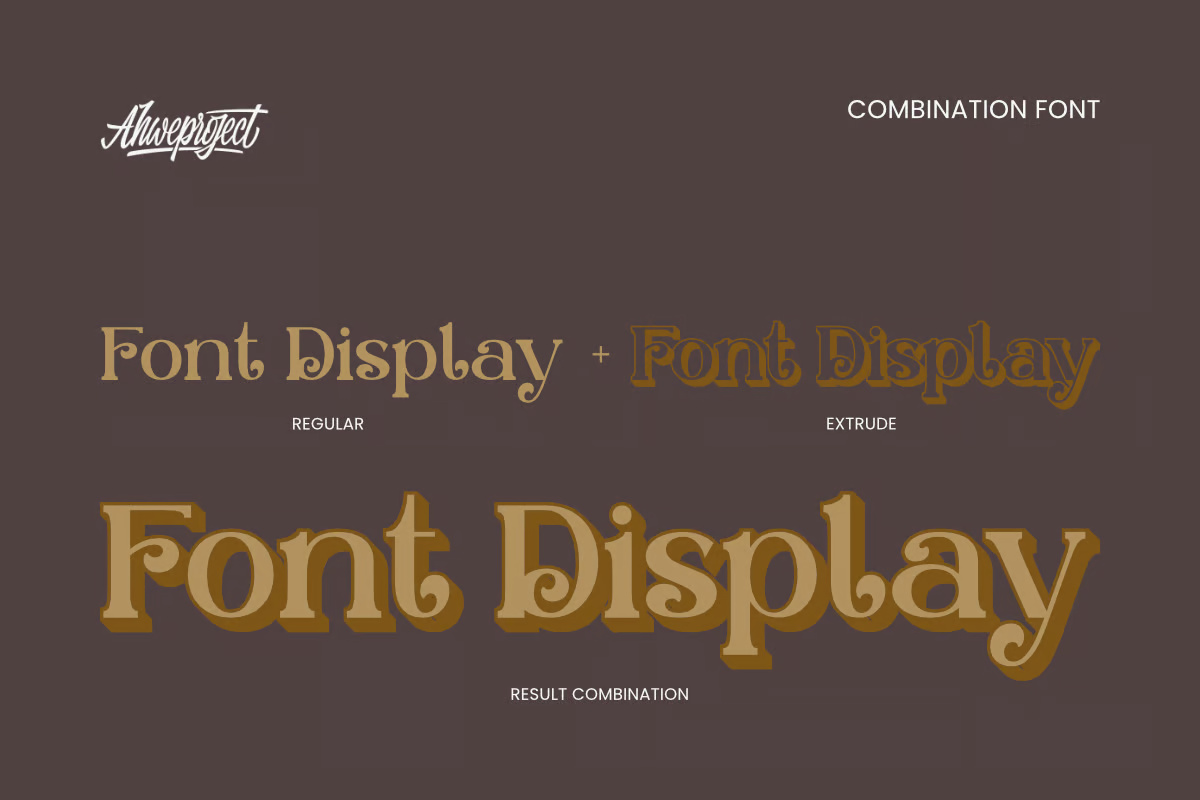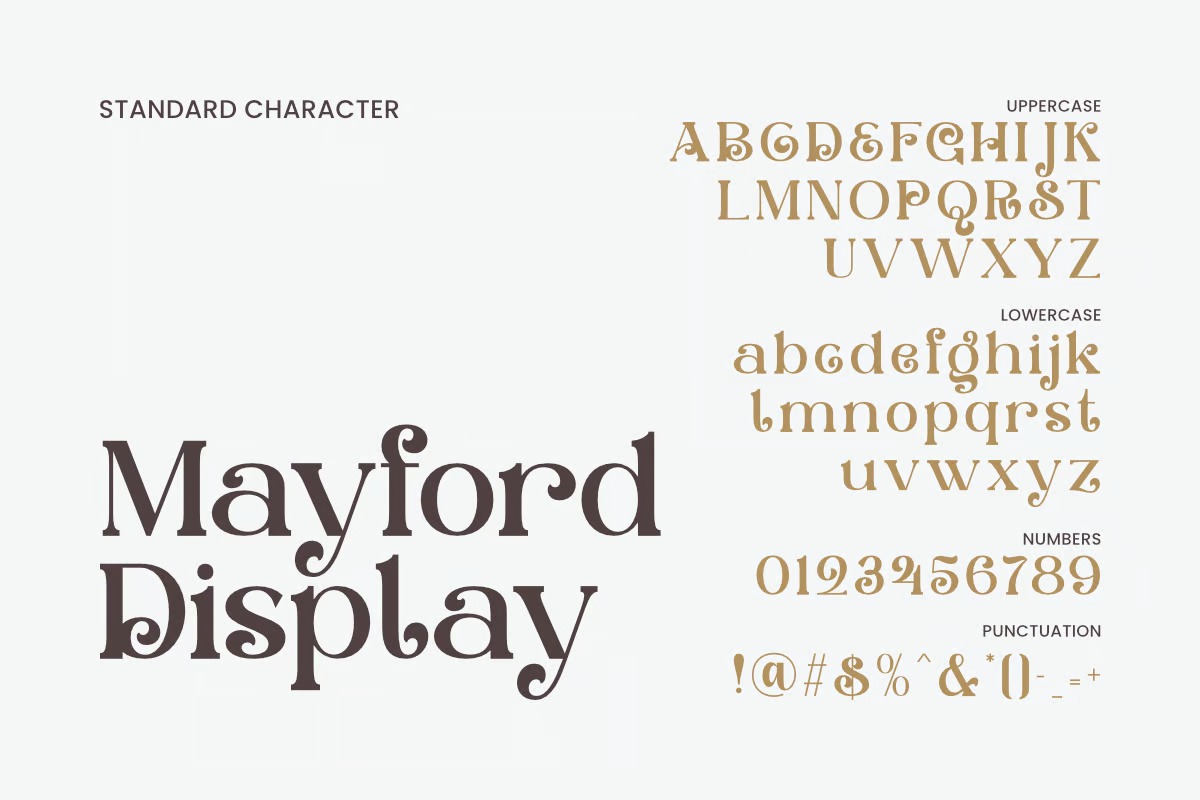
Mayford Display
Mayford Display is a modern serif font with a distinctive and elegant style. Featuring a light weight and high contrast, it exudes sophistication and is perfect for feminine logo designs, fashion branding, editorial layouts, and luxurious typography projects. Its refined letterforms and graceful curves make it an excellent choice for creating a chic and timeless aesthetic.
Mayford Display Serif Font